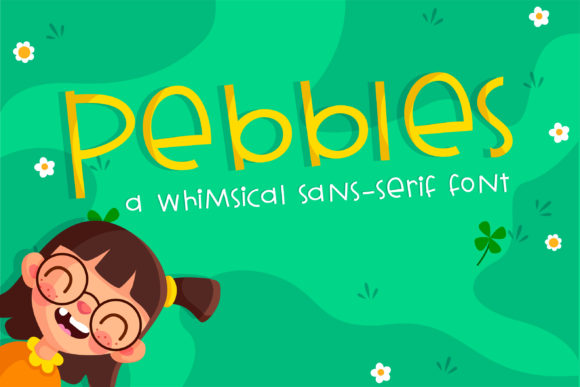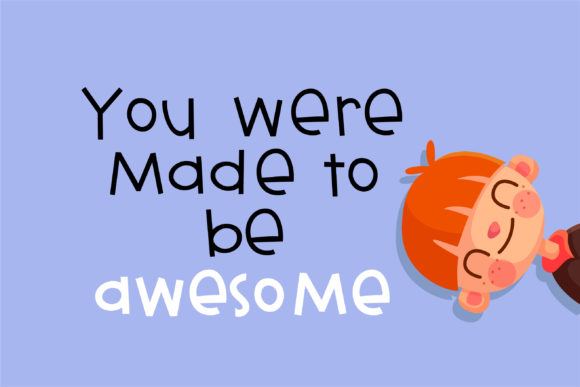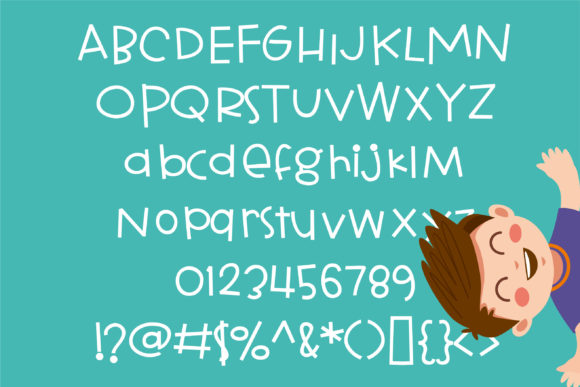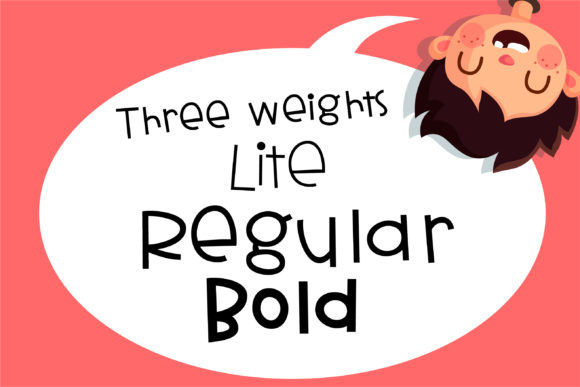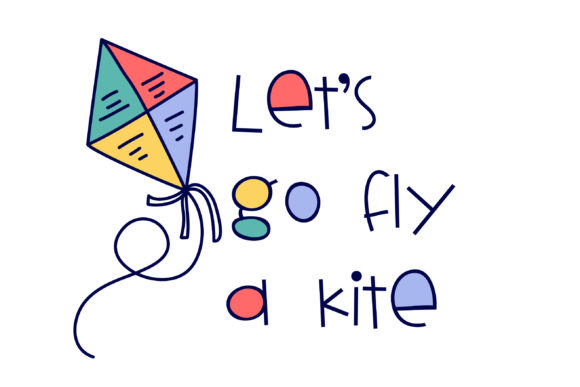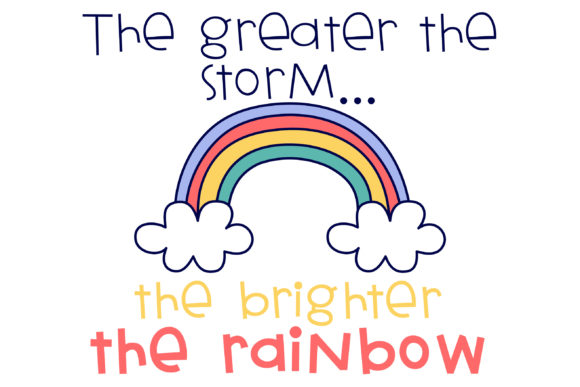
Pebbles Font
About Pebbles Font
Pebbles is a cute and casual handwritten font with an incredibly friendly feel. Whether you’re looking for fonts for Instagram or calligraphy scripts for DIY projects, this font will turn any creative idea into a true piece of art!